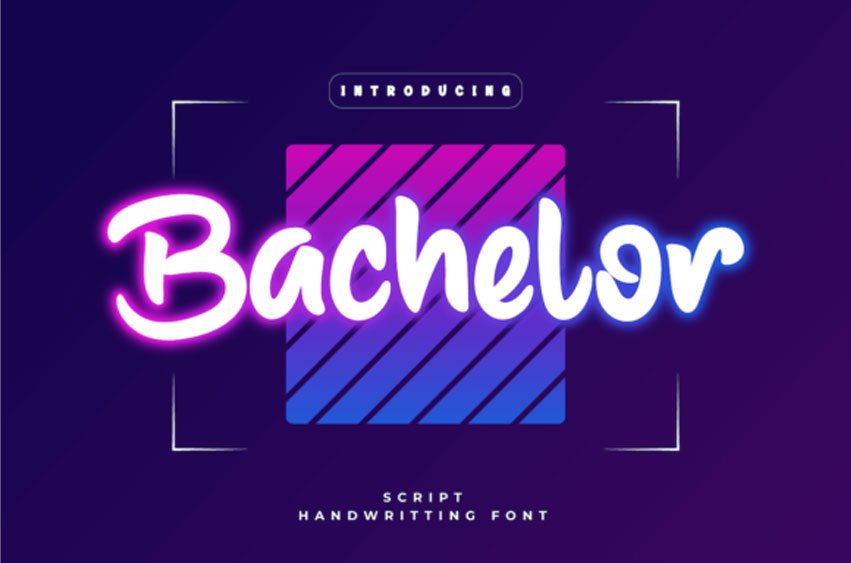
Bachelor Font is a cursive and stylish paint brushed handwritten font.
This original look will appeal to a wide range of crafty ideas, from letterheads and titles, to stationery.
Bachelor Font is a cursive and stylish paint brushed handwritten font.
This original look will appeal to a wide range of crafty ideas, from letterheads and titles, to stationery.